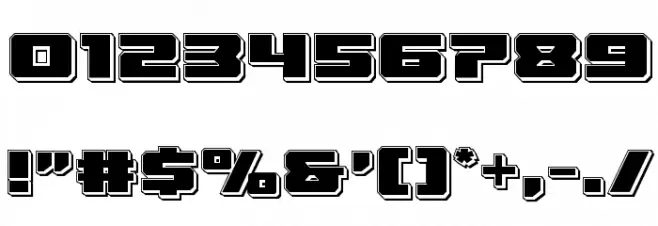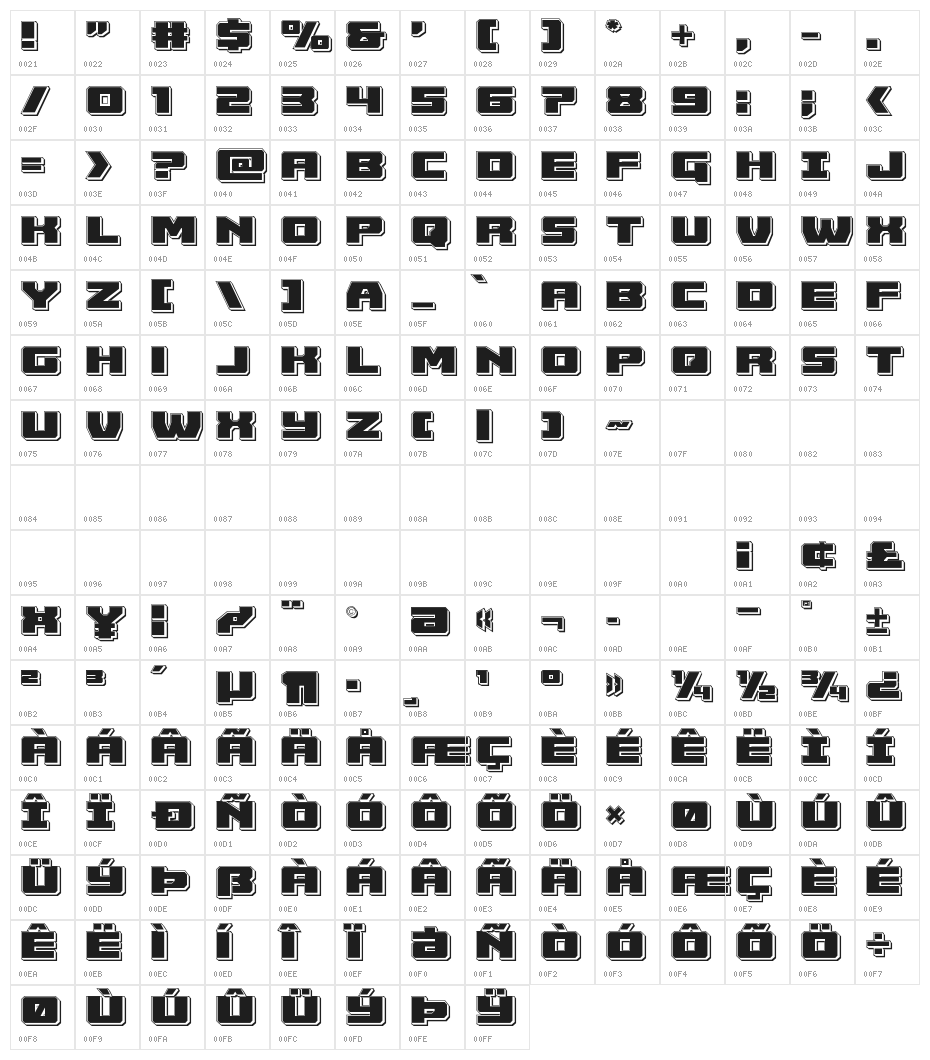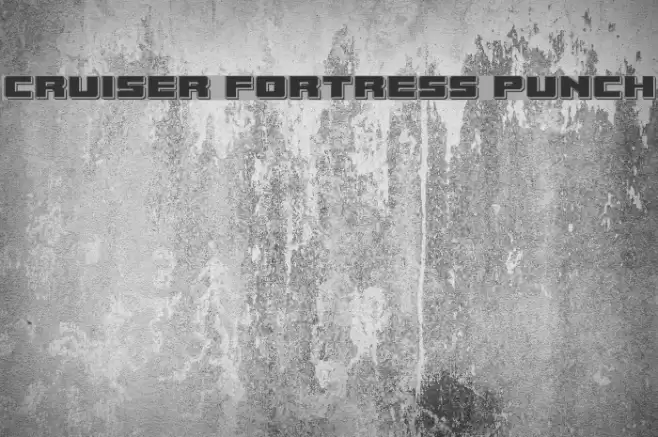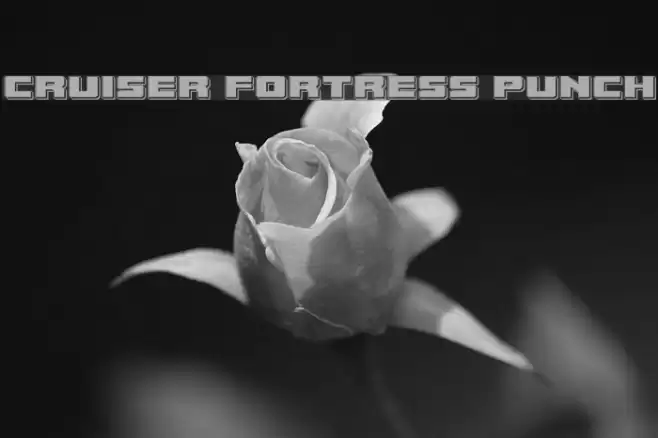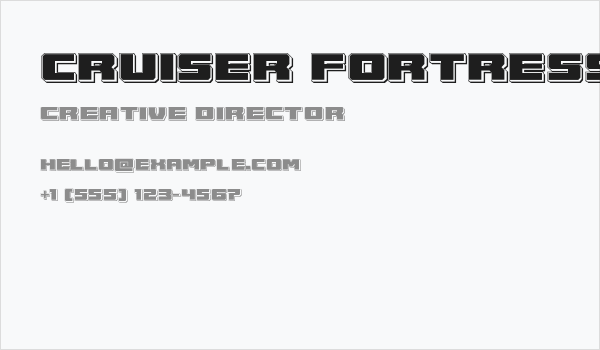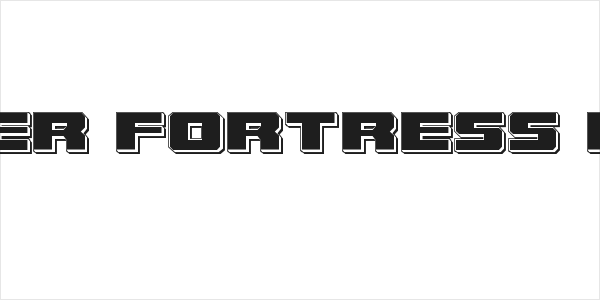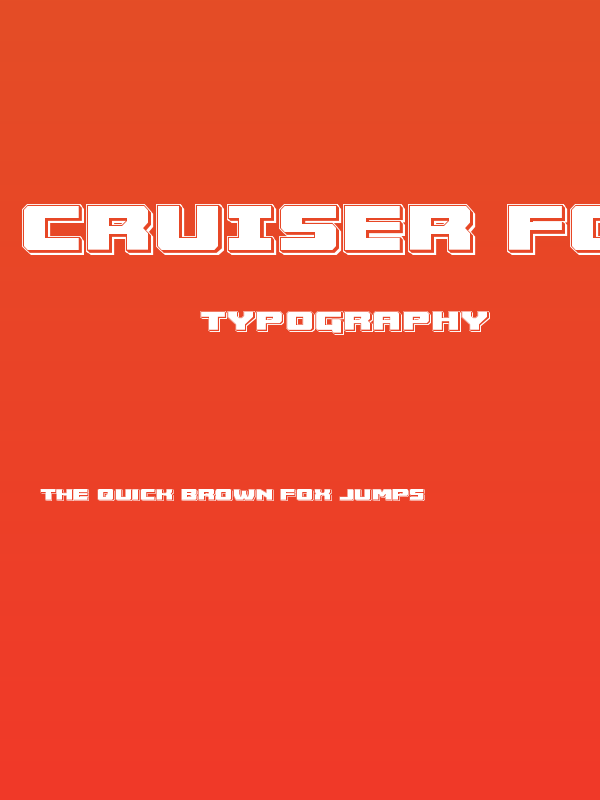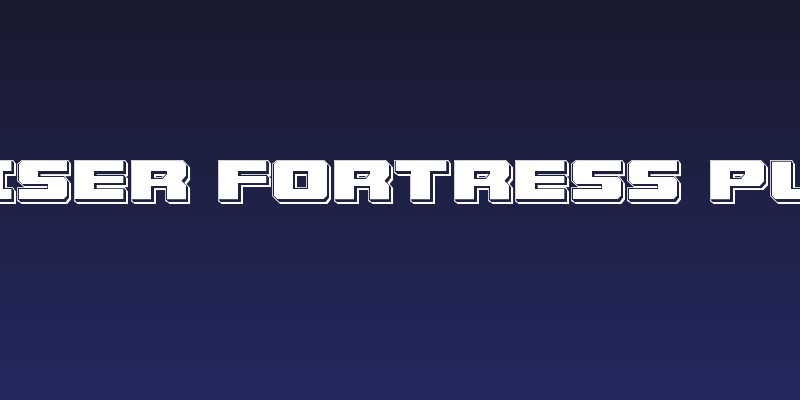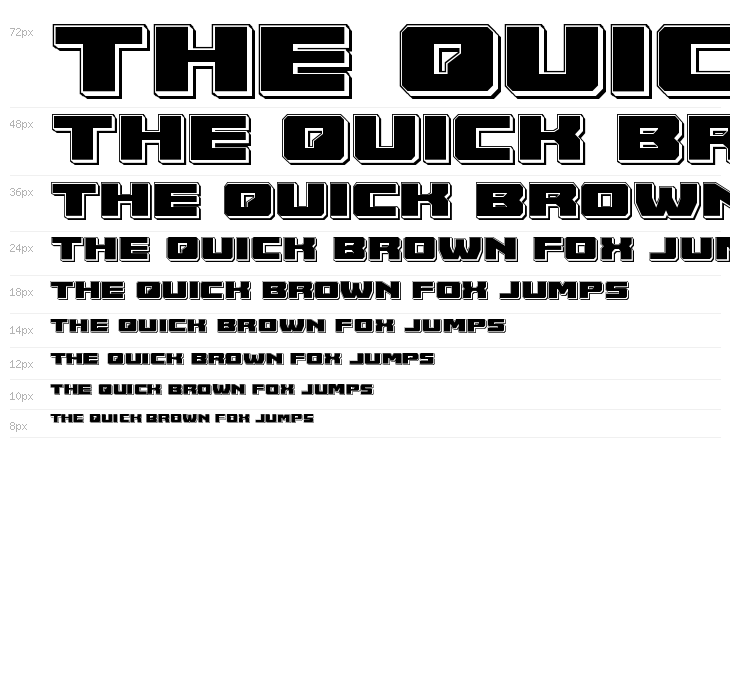
Cruiser Fortress Punch Font
Cruiser Fortress Punch Description
This font features a bold, geometric design with a strong presence. The characters are blocky and robust, with a three-dimensional effect created by a thick outline that adds depth. The uppercase letters are uniform in height, and the numbers follow the same bold style, making them highly legible. The special characters are designed to match the overall aesthetic, ensuring consistency across all glyphs. This font is ideal for projects that require a strong, impactful visual statement.
| Proposed Projects | Ideal for posters, video game titles, sports branding, and any project needing a bold statement. |